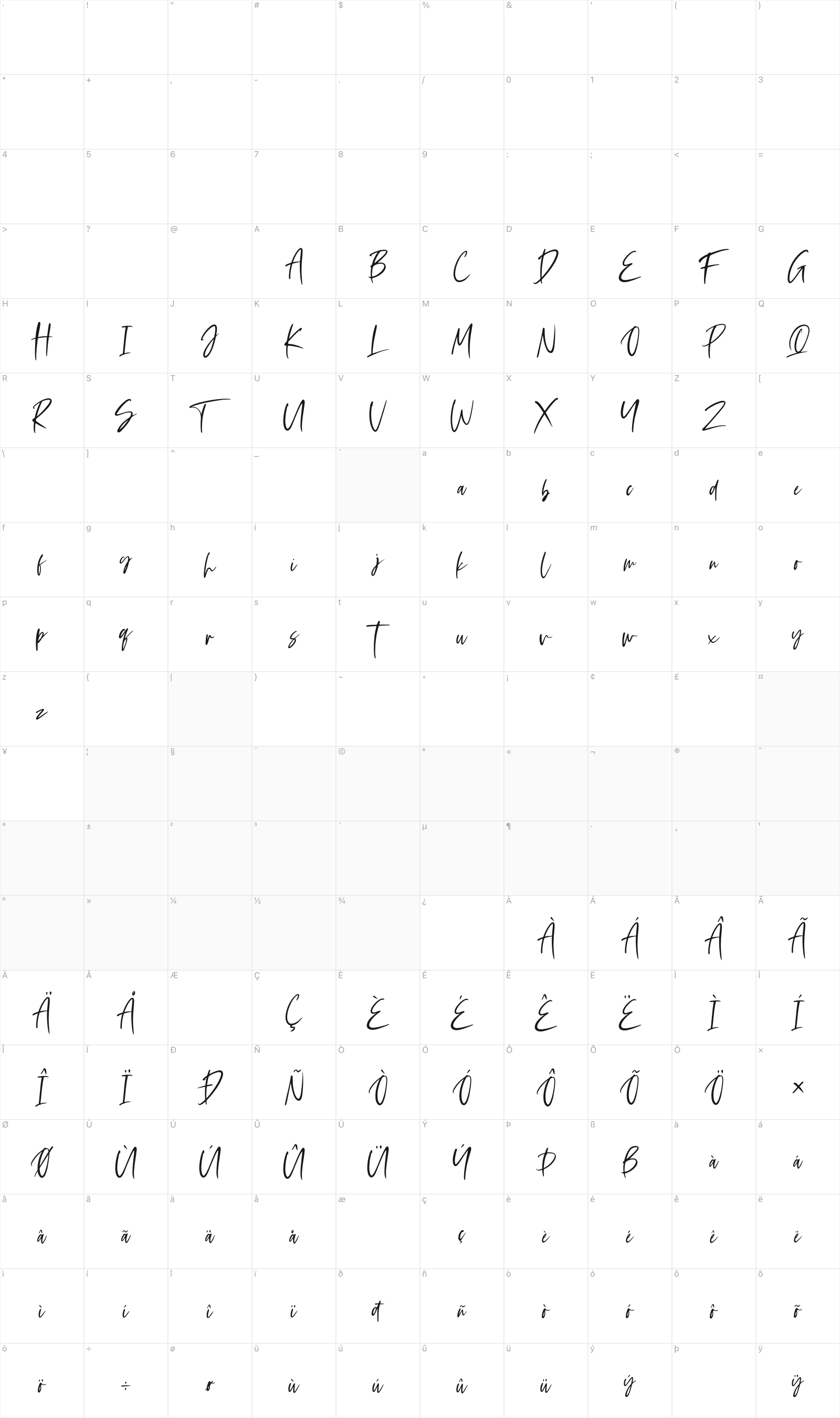
Tuesday Vibes
by Sronstudio
Tuesday Vibes is a thin, flowing handwritten script from Sronstudio that walks the line between casual signature and polished elegance. The letterforms are light and stylish, with the kind of effortless connectivity you'd expect from high-end fashion branding or boutique logos. It reads as modern and personal without feeling overly precious, making it a strong pick for branding, social media, and editorial accents where a human touch matters.